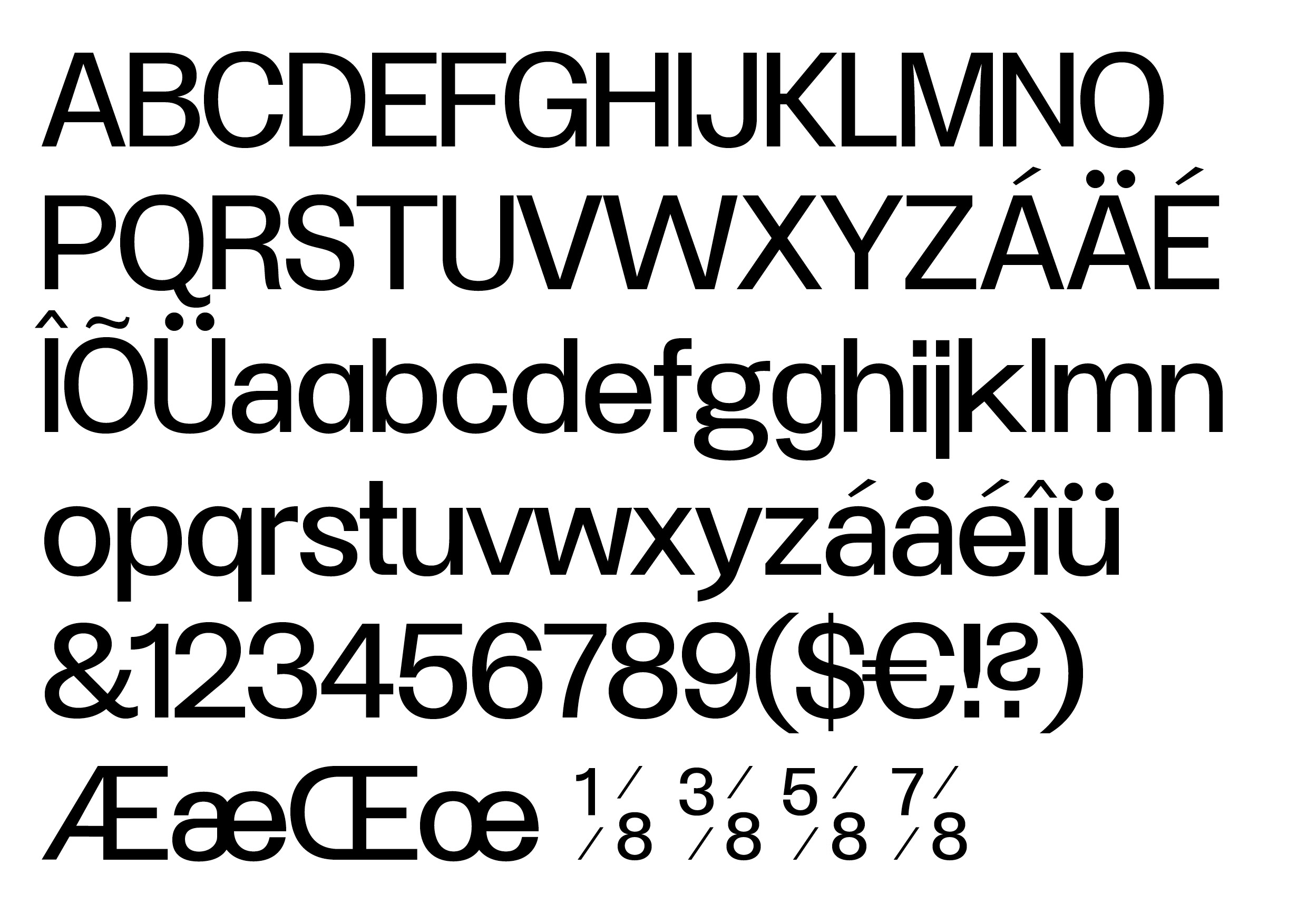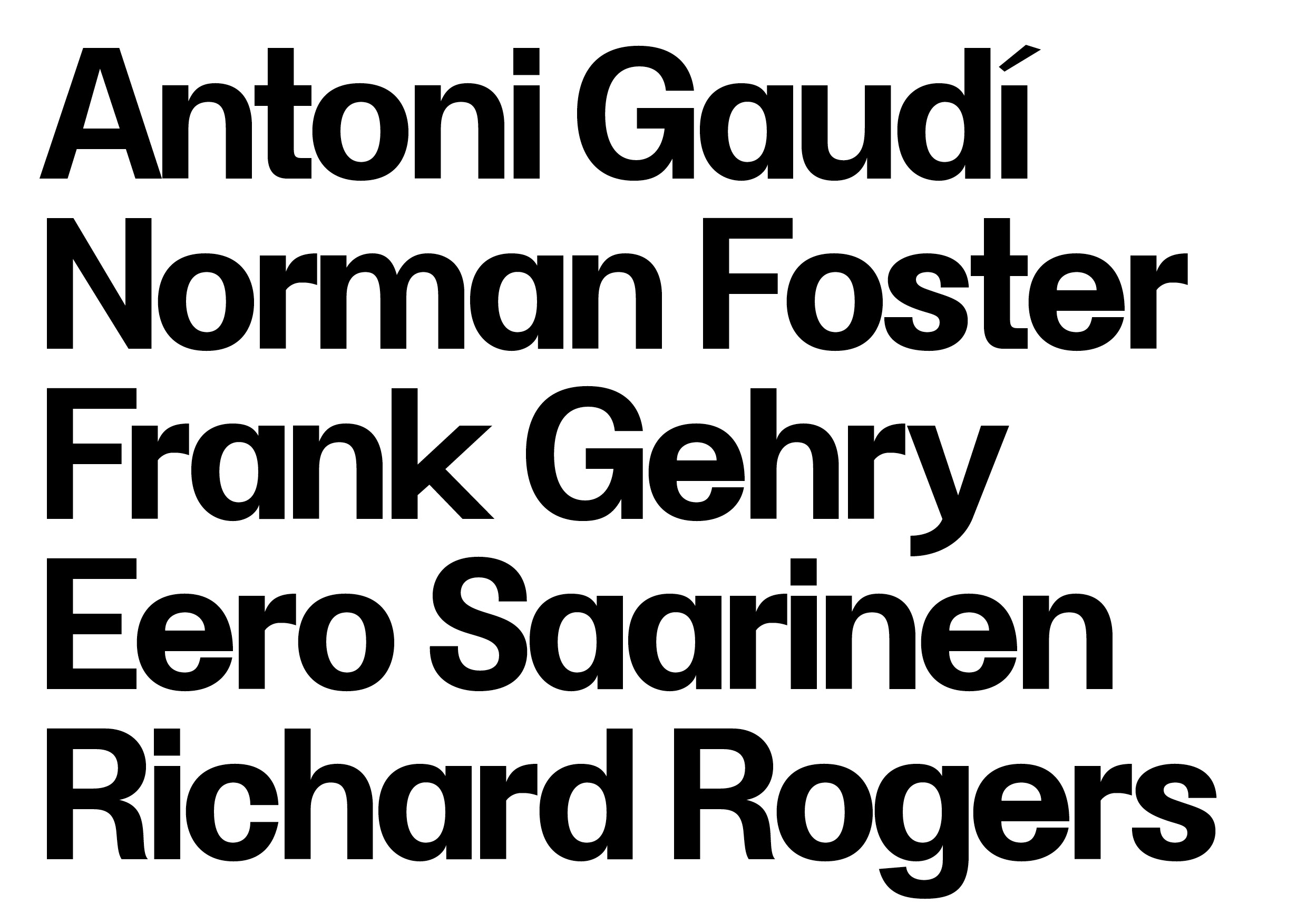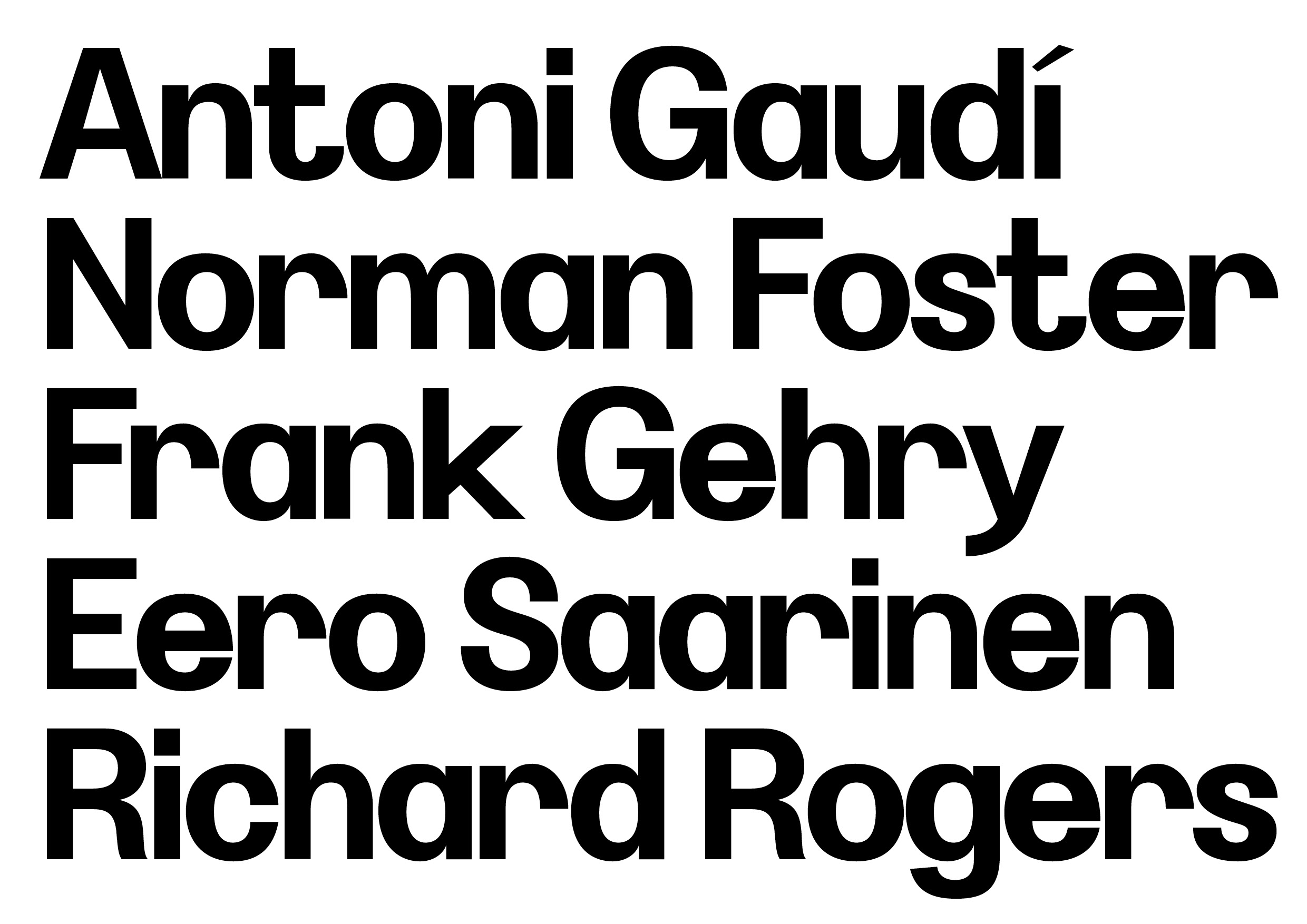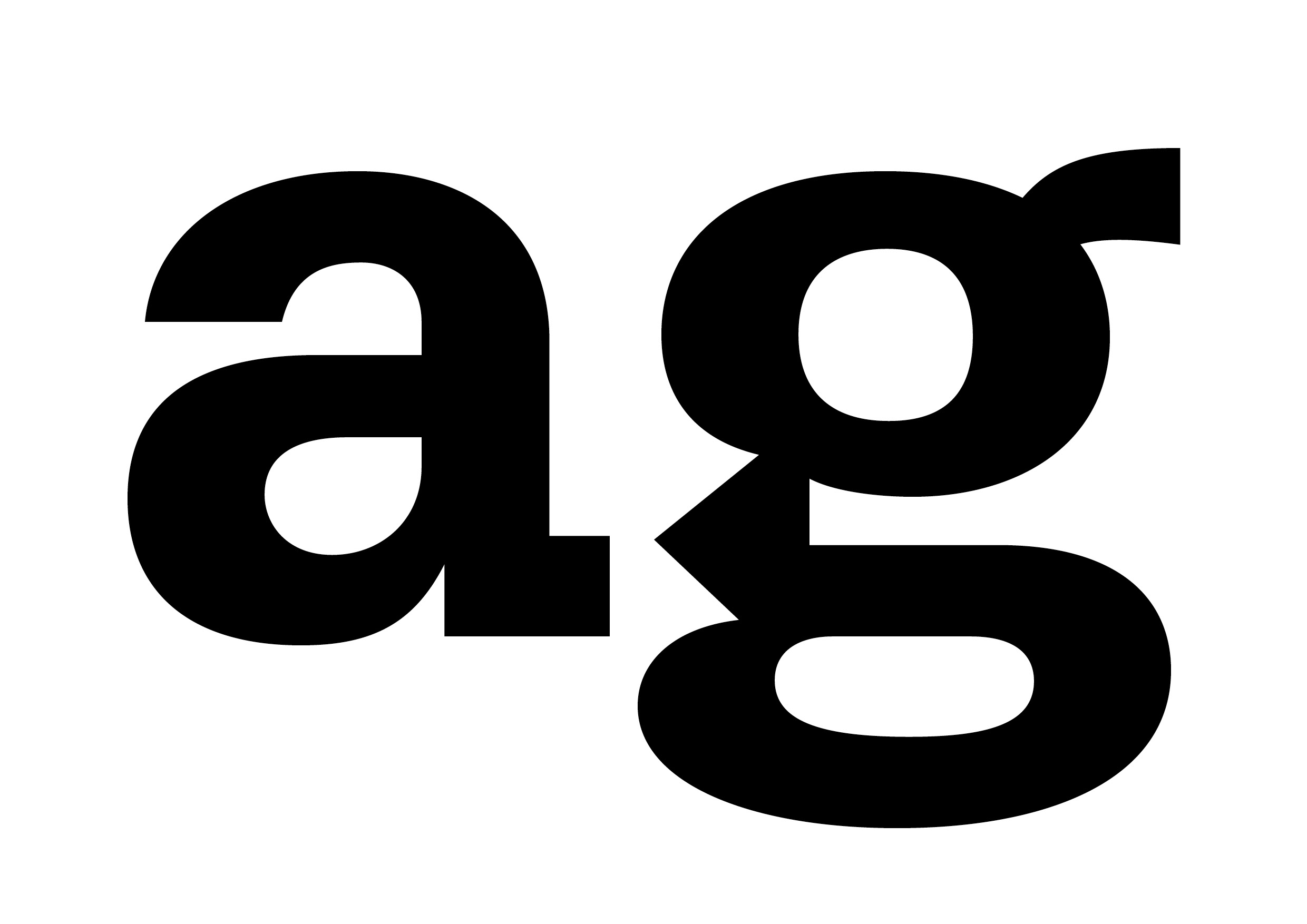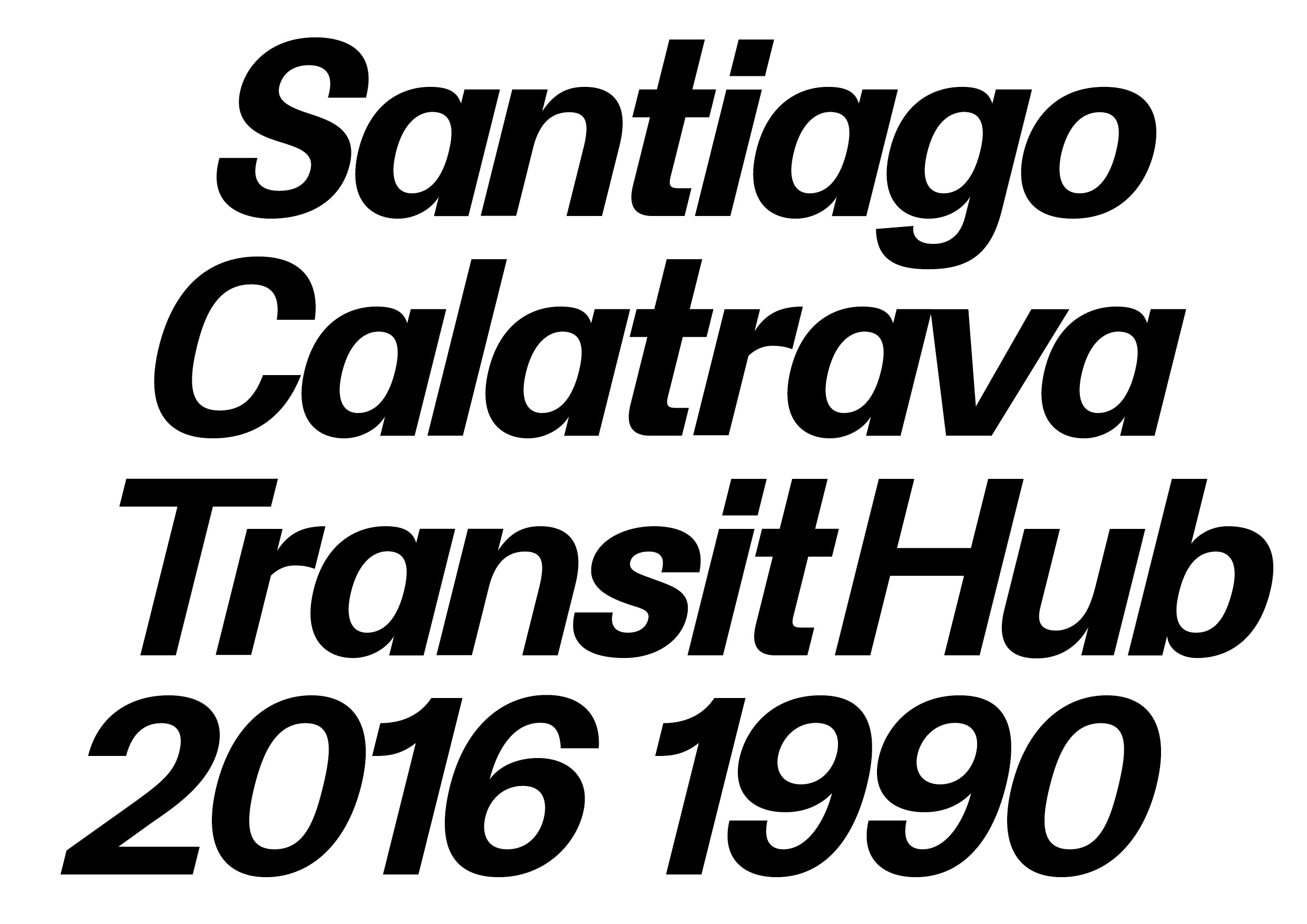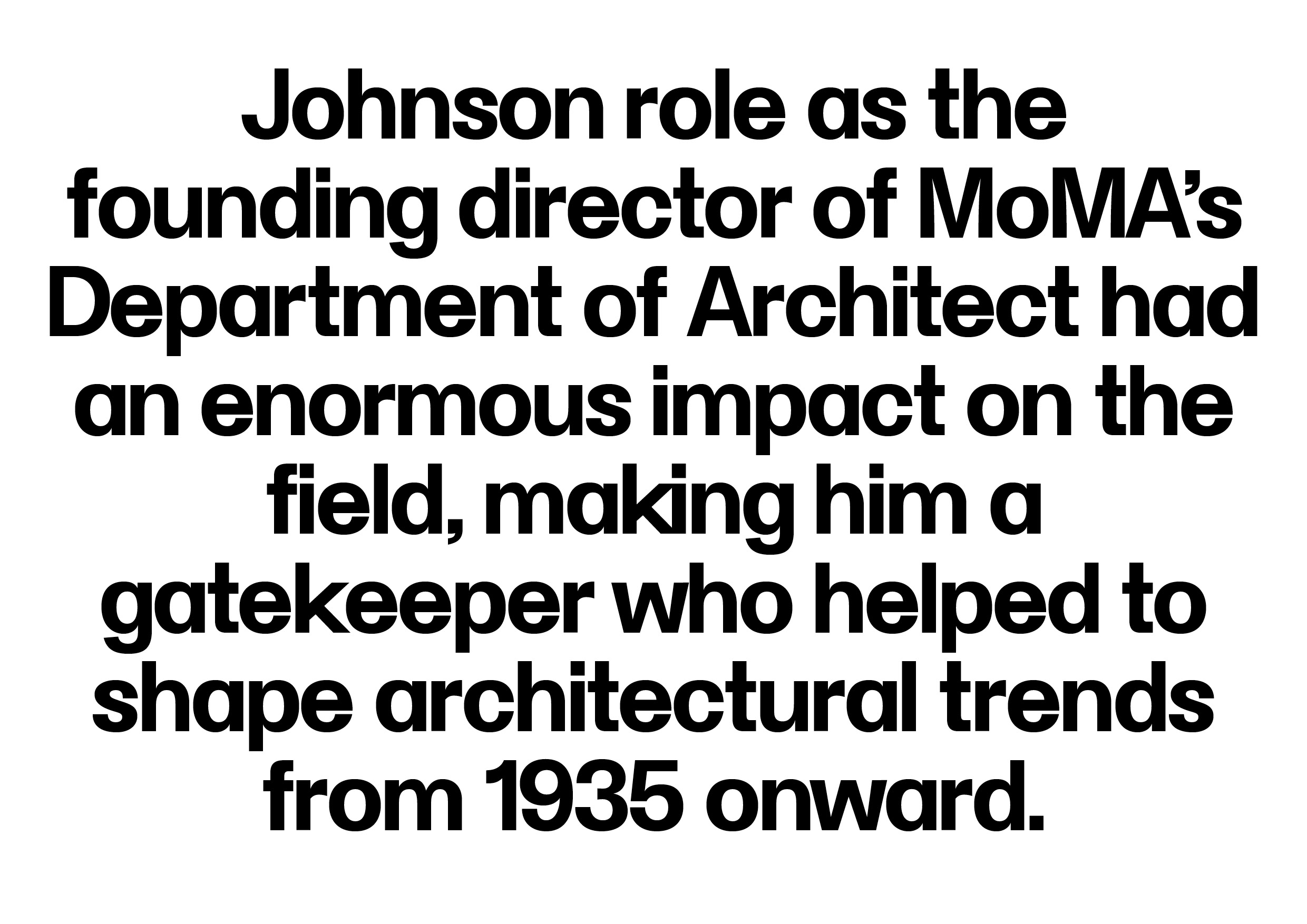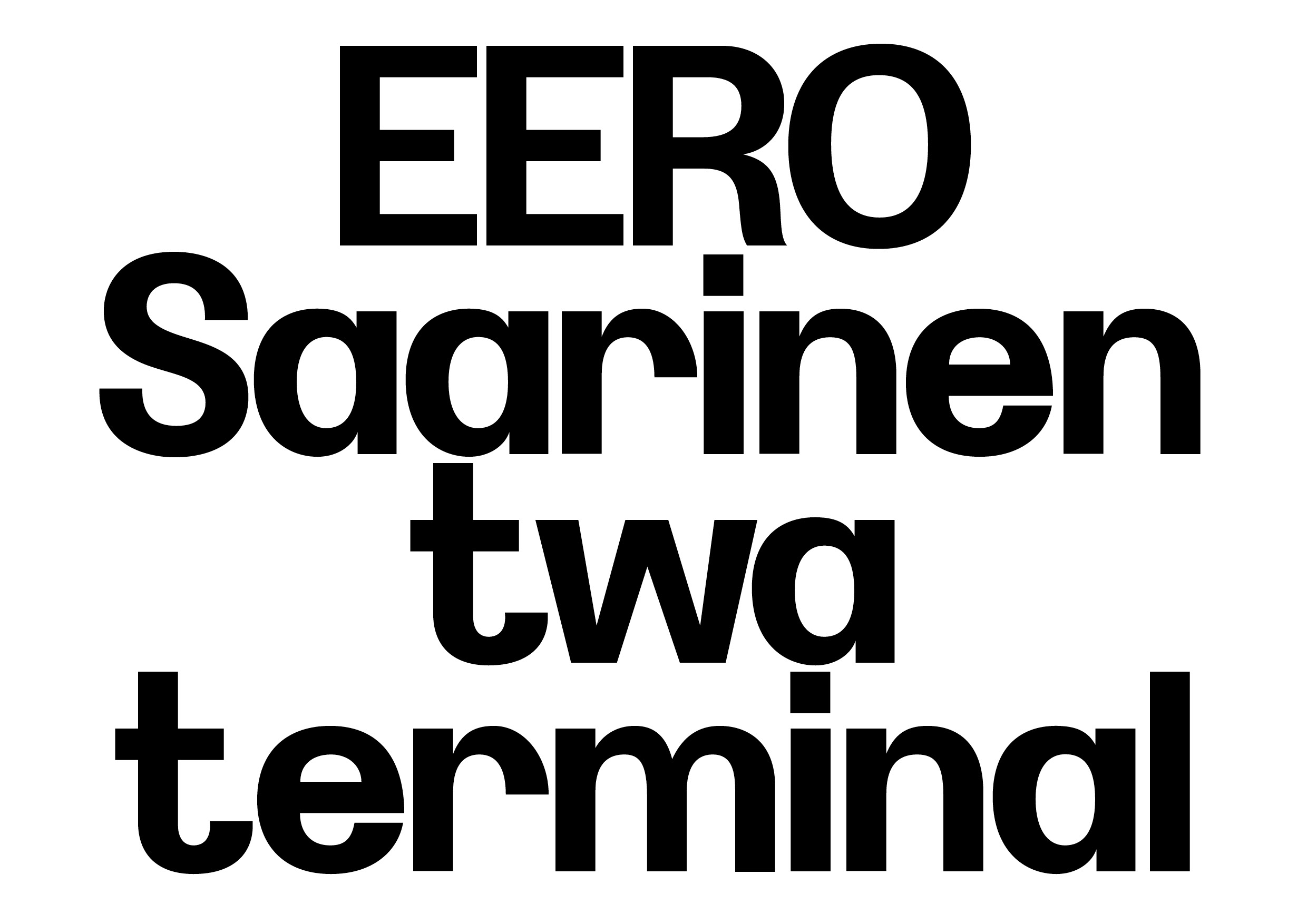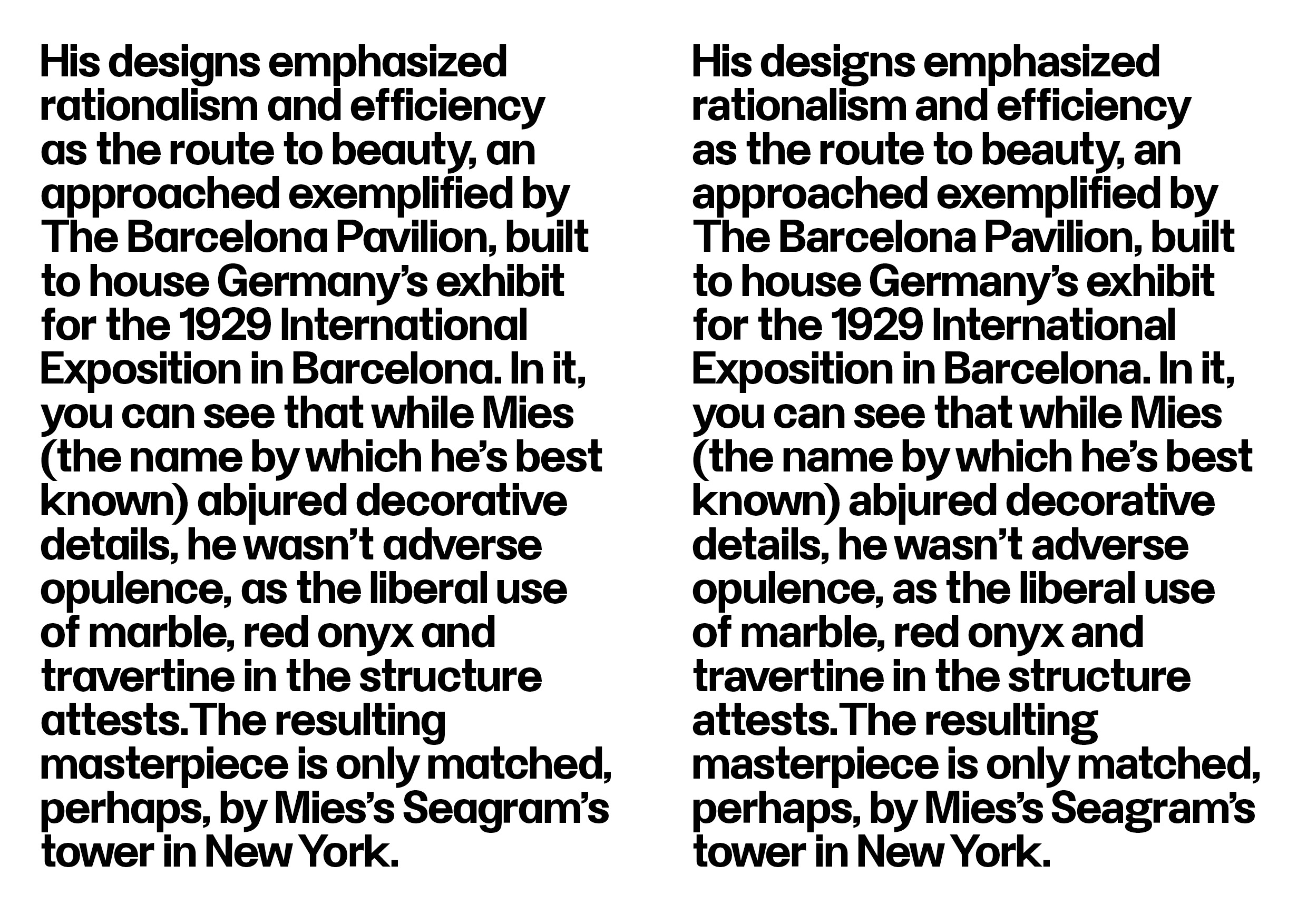
Werk Sans
Werk Sans is a modern geometric typeface with roots in the sans serifs of the 1920s and 30s. It balances the lightness and precision of geometric design with a subtle human touch, echoing the spirit of mid-century architecture journals. Versatile and thoughtfully crafted, Werk Sans offers multiple weights and alternates that respect proportion and space. From titles and signage to magazines and posters, it adapts with ease. Combining historical influence with modern versatility, Werk Sans delivers clarity, character, and timeless appeal.